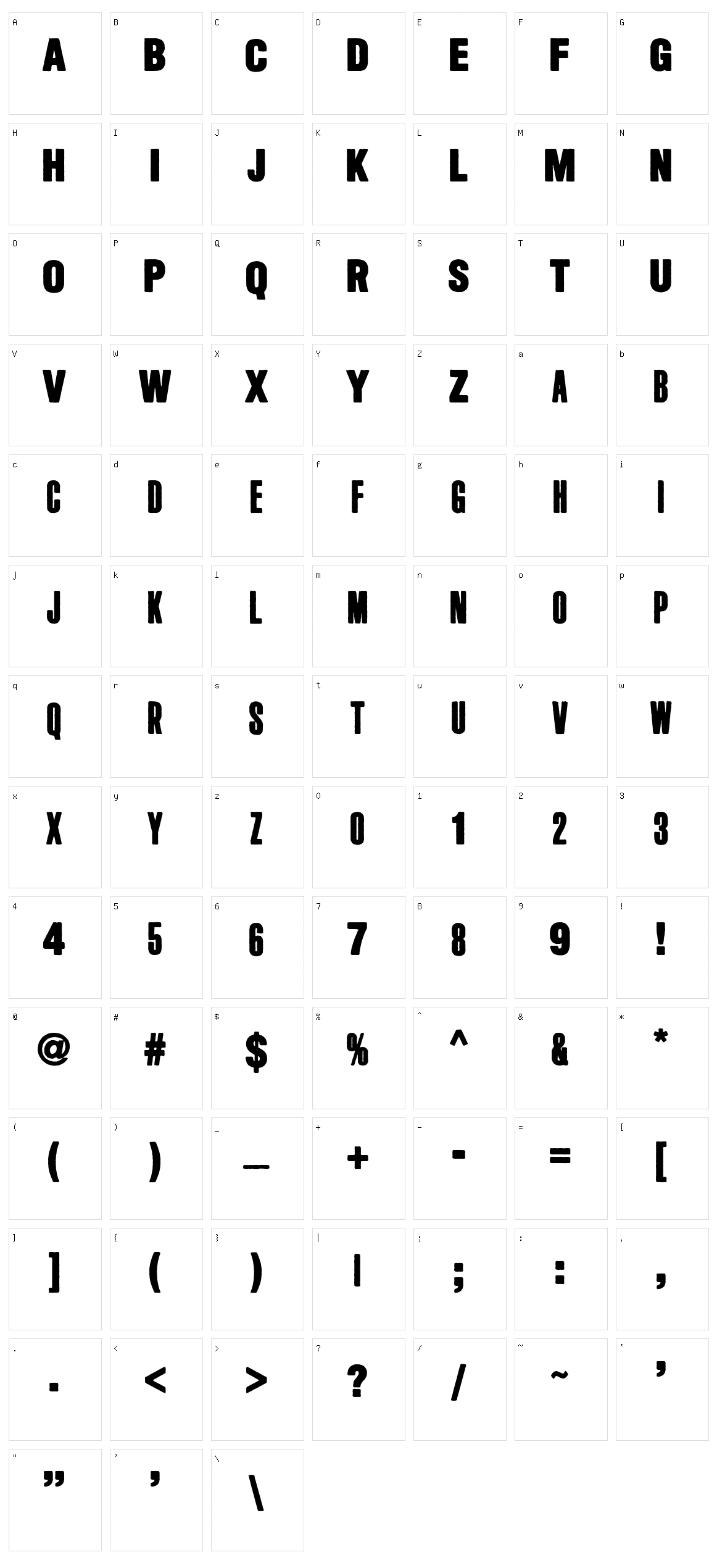
The free font Long Haired Freaky People is carefully designed by Chequered Ink, showcasing a thoughtful balance of creativity and usability and falls under the Eroded font style. When you download the ZIP file, it contains only 32.9 KB of font files, making it lightweight and quick to download. Please review the license details below to understand permitted usage and distribution rights. If license information is not available, we recommend using this font for personal projects only or contacting the author directly for commercial usage permissions.